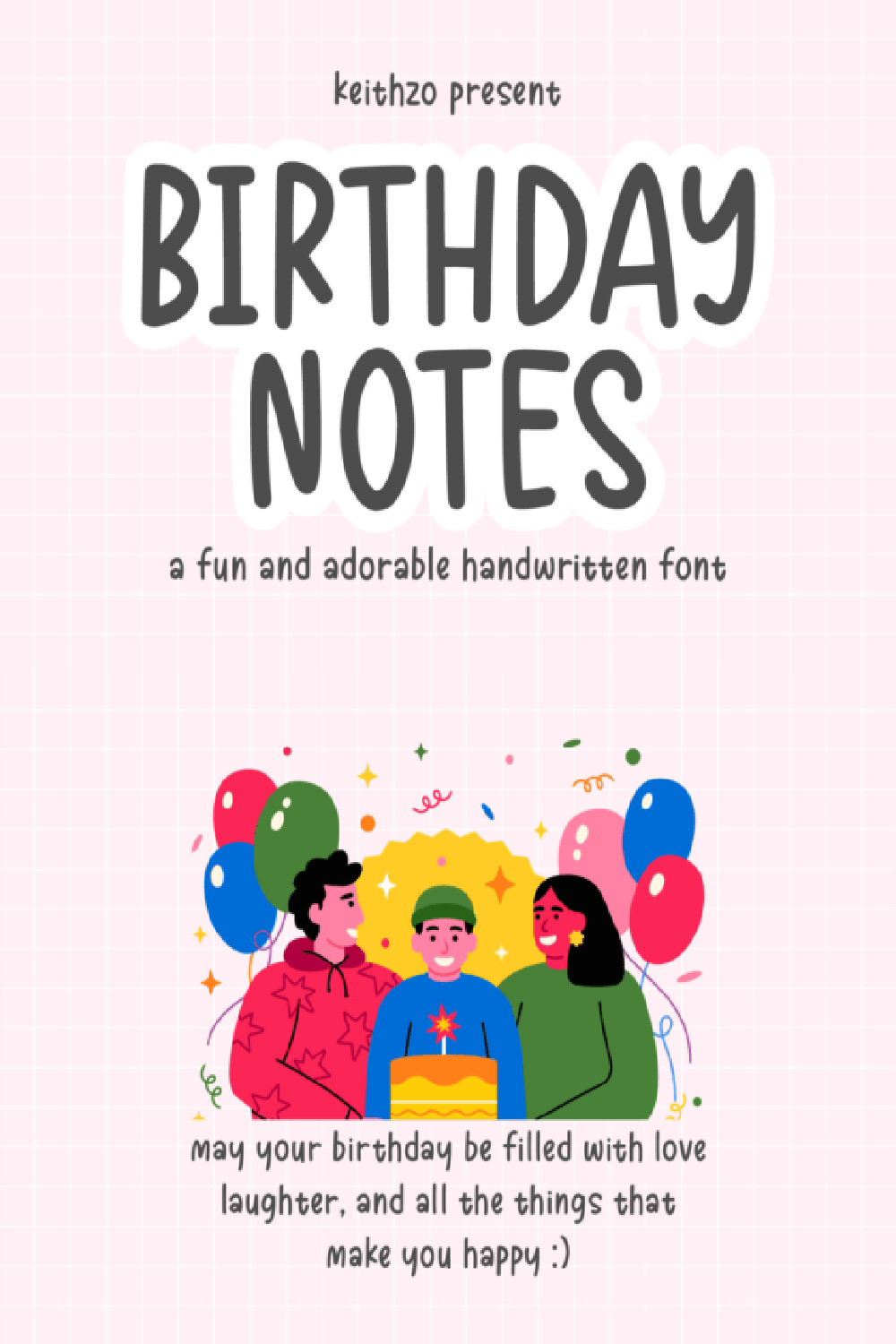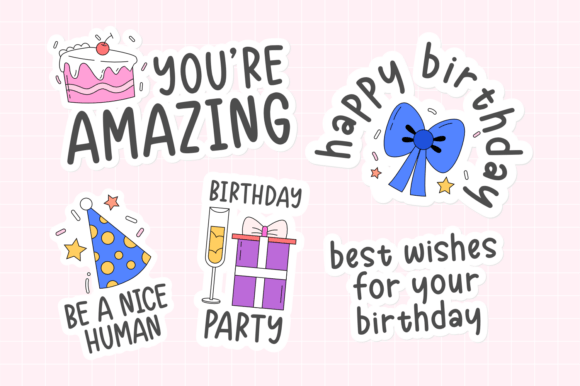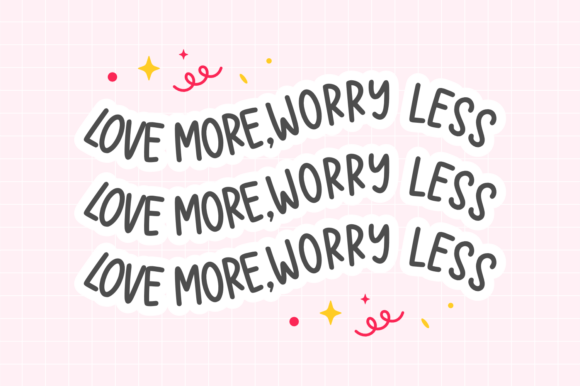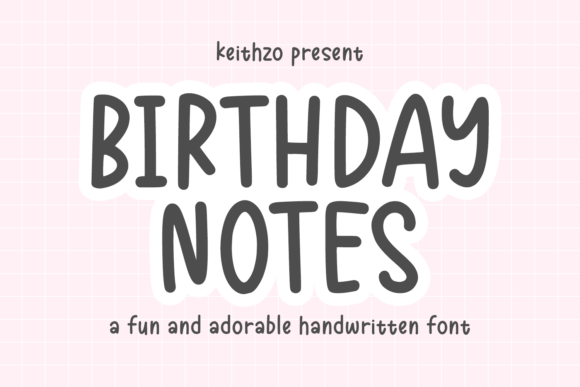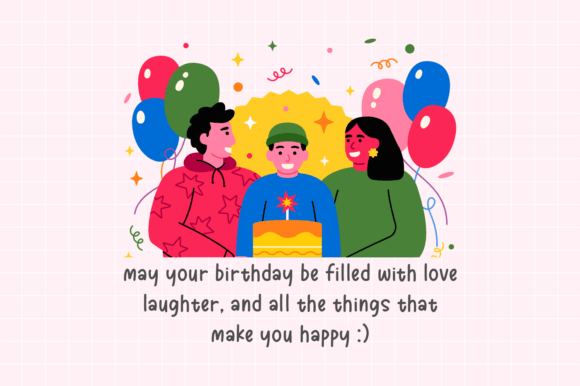
Birthday Notes Font: A Cute Handwritten Display Font for Cricut!
About the Birthday Notes Font
Get ready to be inspired by Birthday Notes Font, a fresh and dynamic typeface for modern creators. Experience the joy of designing with Birthday Notes, a delightful display font that embodies fun and playfulness. This charismatic font, with its enchanting style, is simply ideal for crafting charming birthday cards, inviting party invitations, and celebratory artifacts. Let Birthday Notes infuse a cascade of color and sparkle of happiness into your creative ventures!